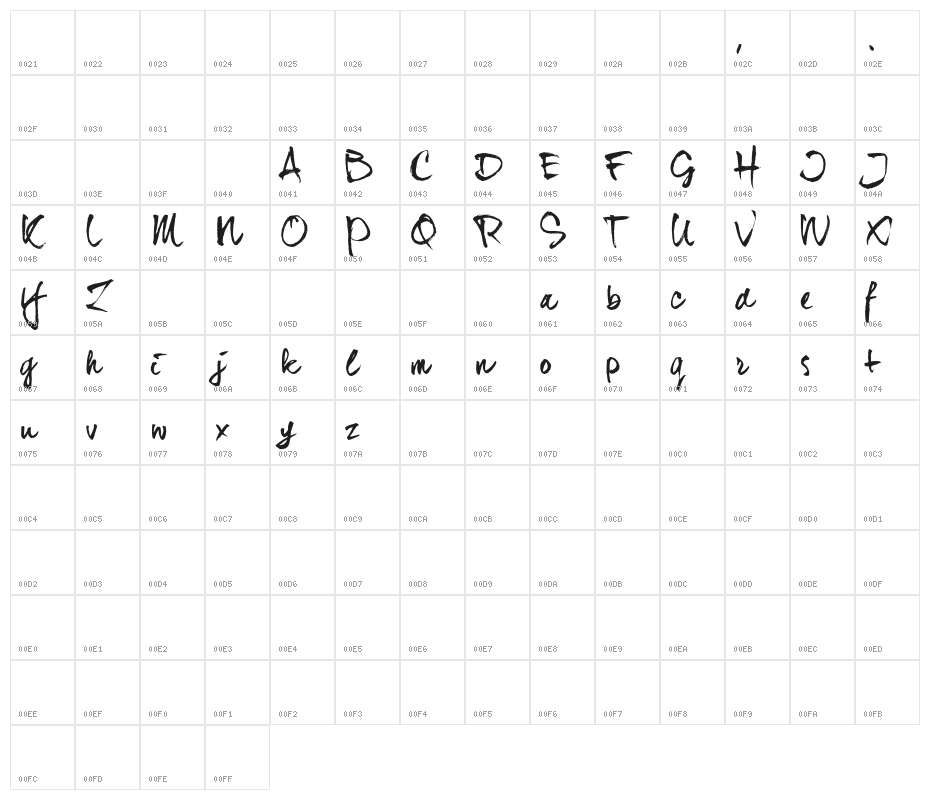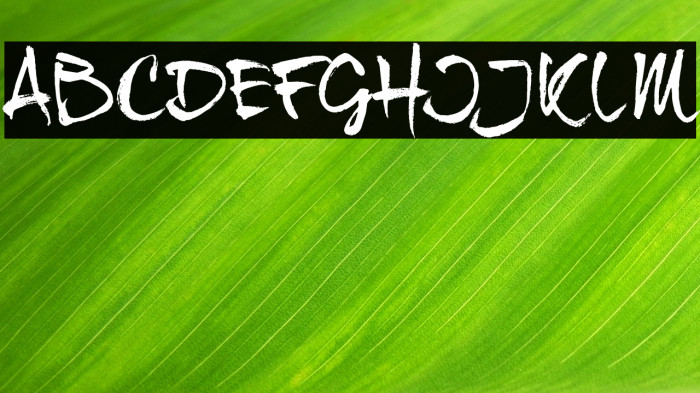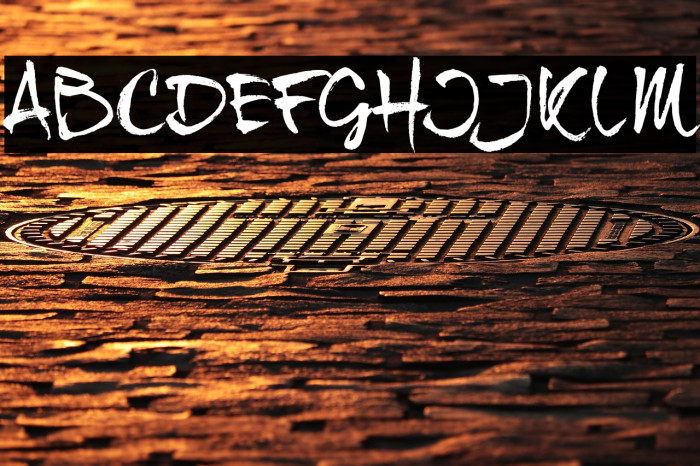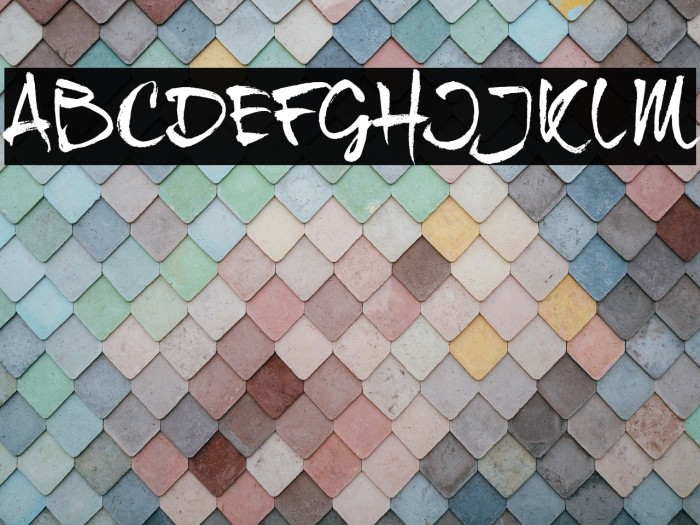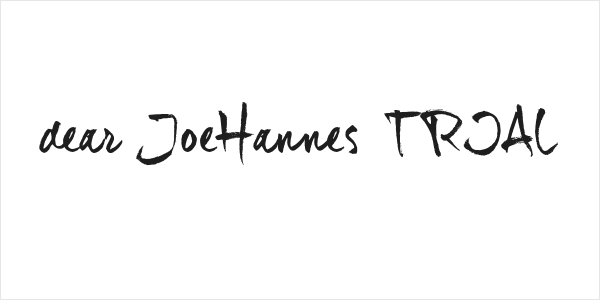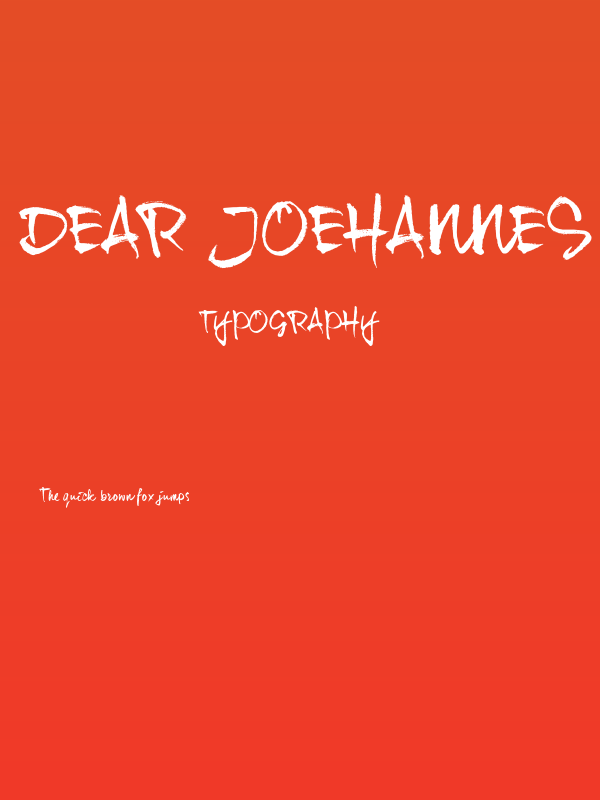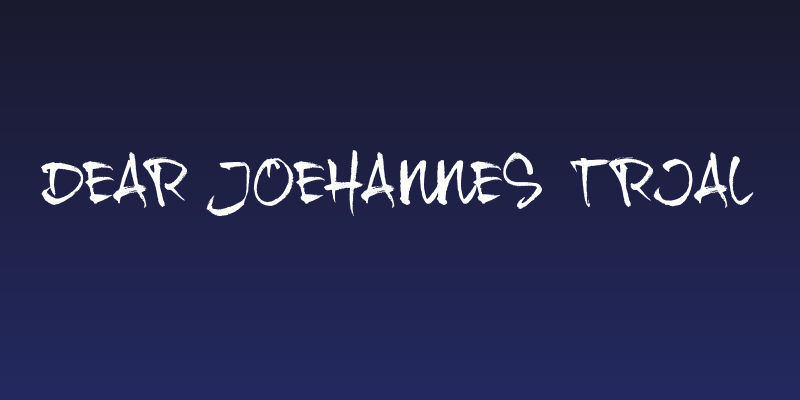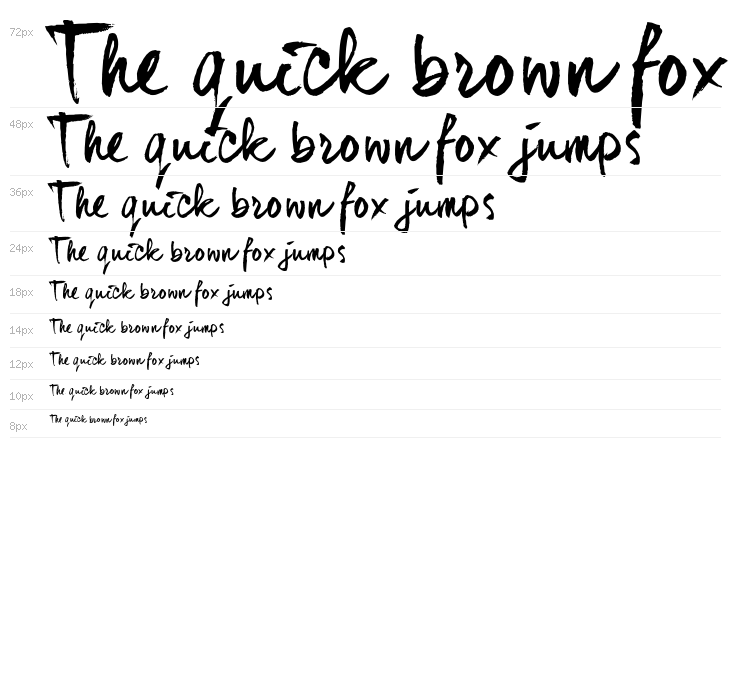
dear_JoeHannes_TRIAL Font
dear_JoeHannes_TRIAL Description
This font features a dynamic and expressive handwritten style, characterized by bold, sweeping strokes and a slightly irregular baseline. The uppercase letters exhibit a strong presence with their thick, confident lines, while the lowercase letters maintain a fluid and natural flow. The overall appearance is both artistic and energetic, capturing the essence of a personal touch. The font's unique charm lies in its ability to convey emotion and personality, making it ideal for projects that require a human element. The special characters are crafted with the same attention to detail, ensuring consistency across all glyphs.